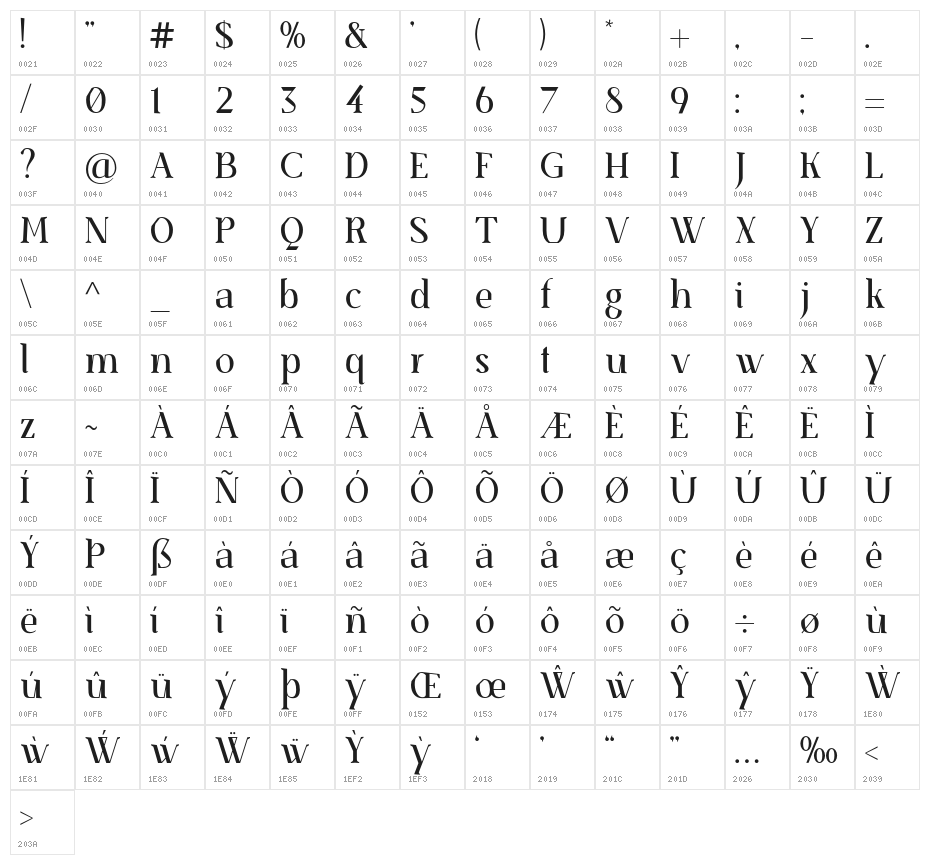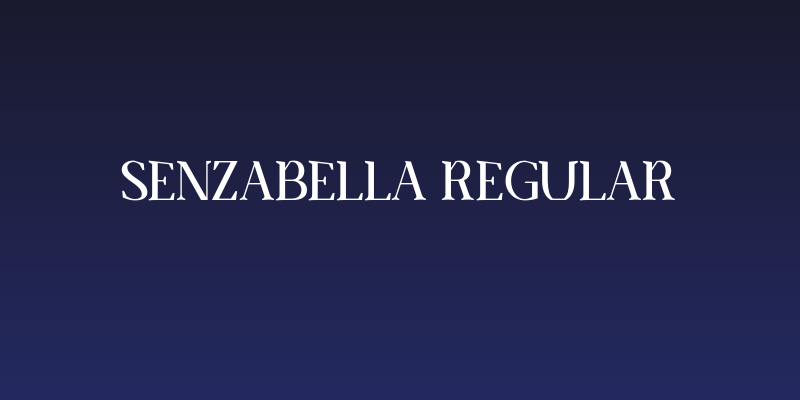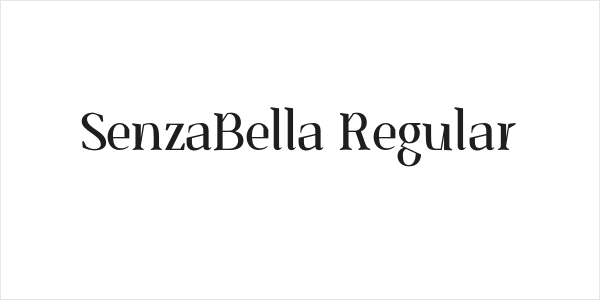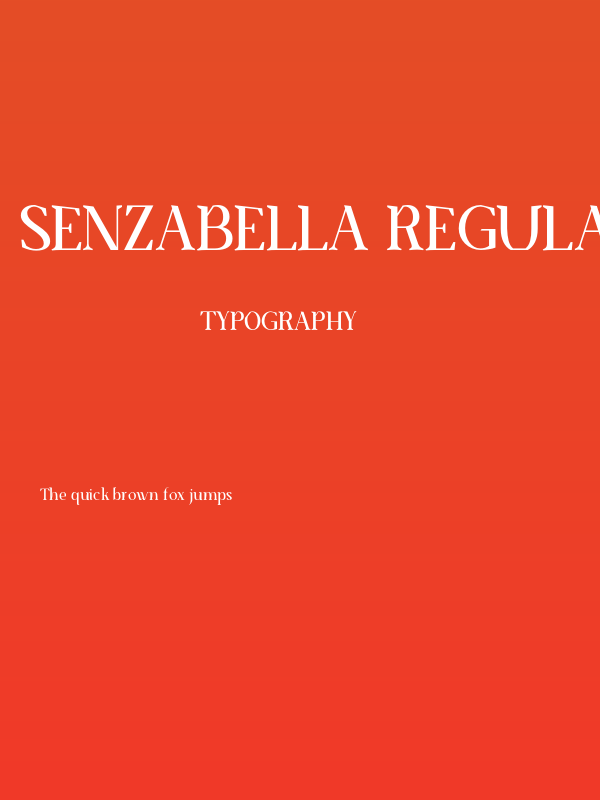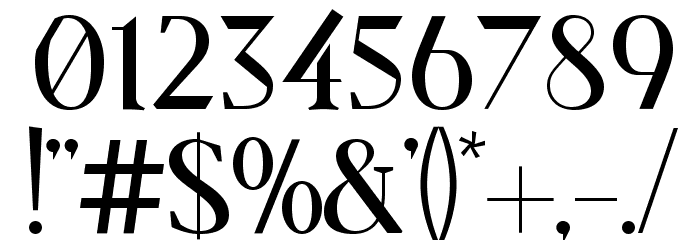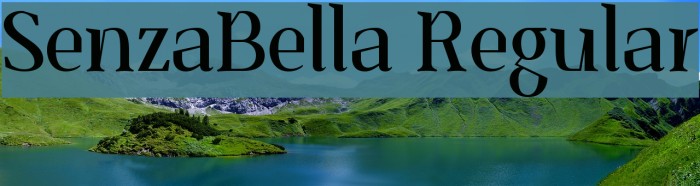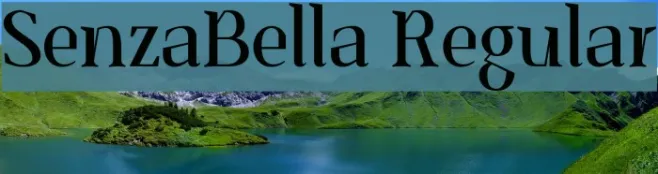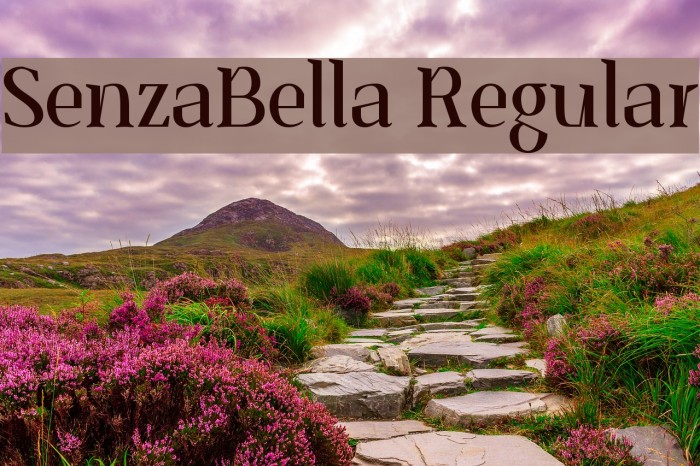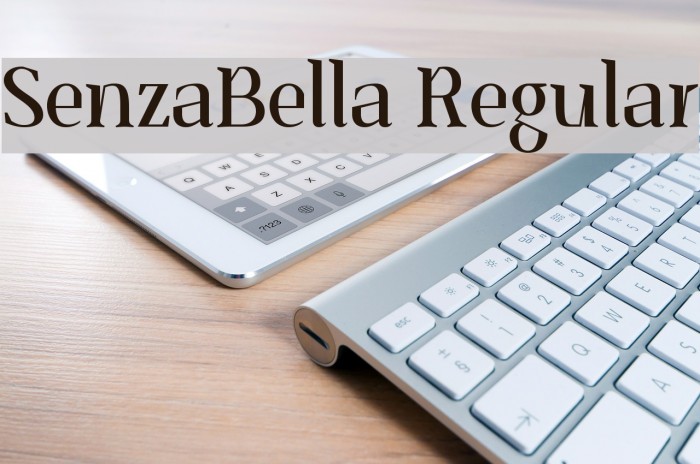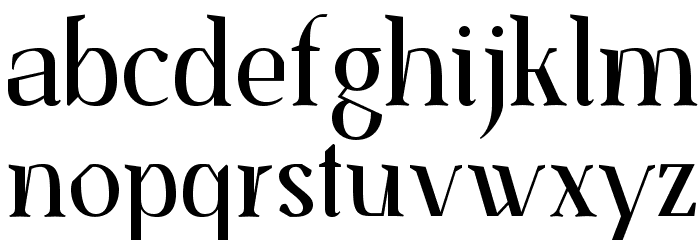
SenzaBella Regular Font
SenzaBella Regular Description
This font features a distinctive blend of elegance and modernity, characterized by its sharp serifs and high contrast between thick and thin strokes. The uppercase letters exhibit a classic and formal appearance, while the lowercase letters maintain a more approachable and contemporary feel. The numerals are designed with a consistent style that complements the overall aesthetic. Special characters are crafted with attention to detail, ensuring versatility across various design needs. The font's unique style makes it suitable for projects that require a touch of sophistication and flair.
| Use Case | Headlines, Logos, Editorial design |
| Proposed Projects | Ideal for branding, editorial design, luxury packaging, and elegant invitations. |